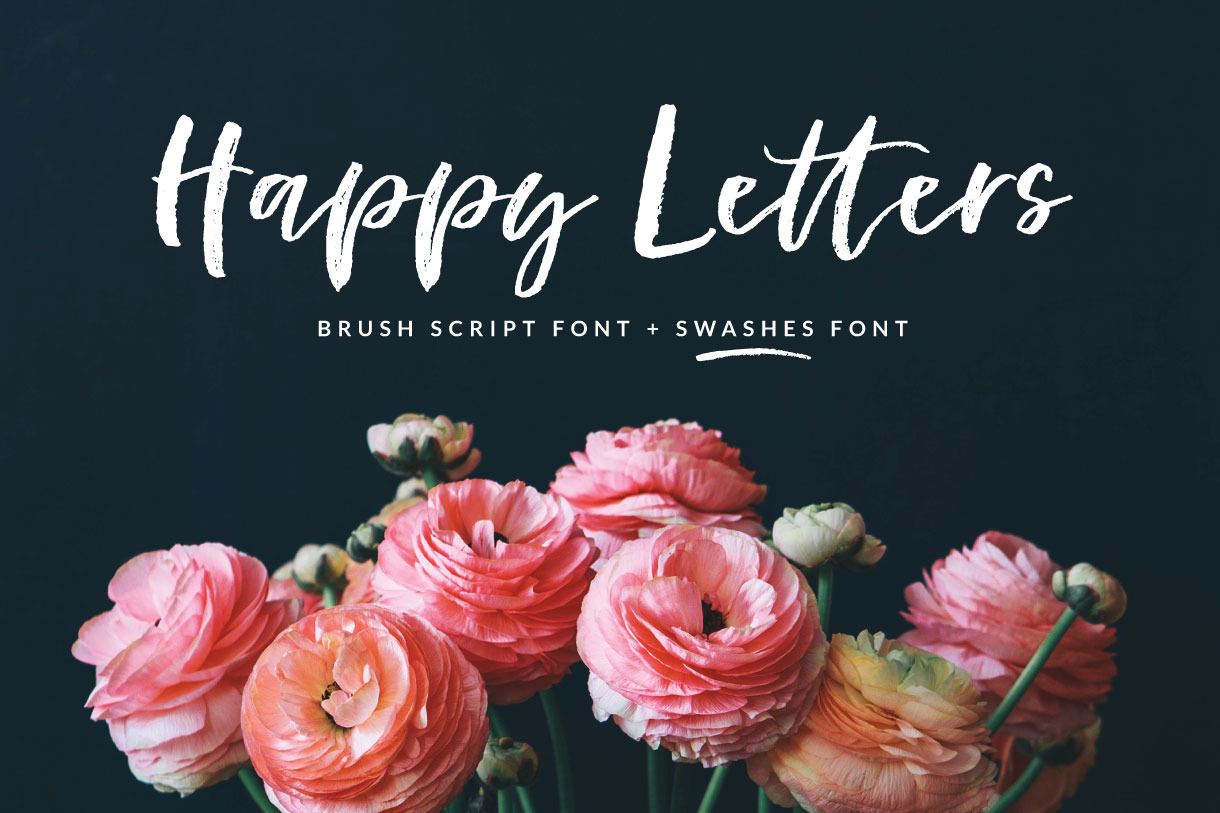
Happy Letters Brush Script font
Let the brush roll and see how the font Happy Letters gives a delightful touch to your art imagery with natural and stylish lines. This font brings a casual yet organic feel with rough edges and realistic brush textures. Perfect for printed cards, invitations, wedding imagery, thank you cards, book titles, restaurant menus, as well as digital applications such as social media branding projects, newsletters, eLetters, eCourses, eBooks headlines, among many more.
This font is composed by 2 different styles: Happy Letters Script including a Stylistic set if you want to change a letter or capital on any text with ligatures for a more realistic text design. It also features a Bonus Swashes Font with different brushes, perfect for finishing details or extra decor in your text line.
- Full upper and lowercase
- Stylistic Set
- Accents (Multi-lingual support)
- Traditional Double Letter Ligatures
- Bonus font including dingbat graphics and brushes